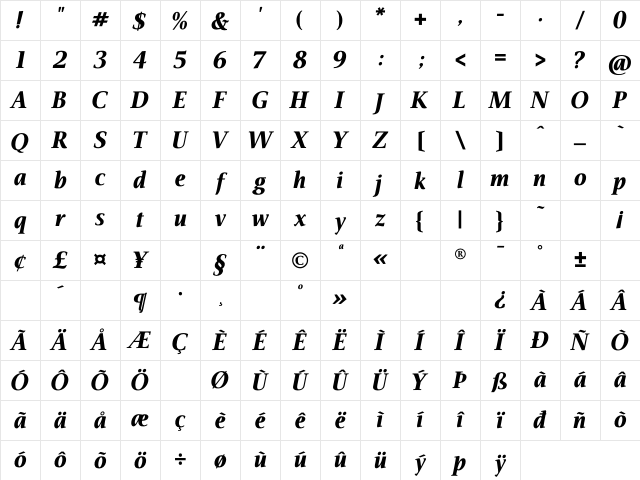
Complete AIVeritas BlackItalic glyph index. Displaying only characters natively supported by AIVeritas BlackItalic font.
AIVeritas is a composed and adaptable typeface that performs quietly and consistently across a wide range of design contexts. The slanted form adds forward momentum and visual energy.